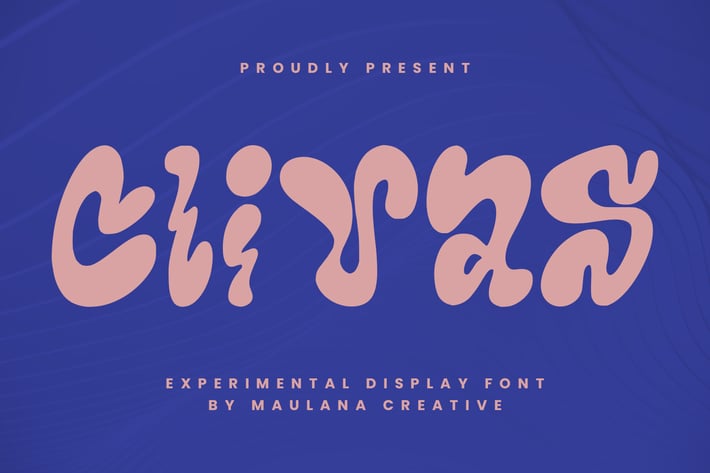
Clivas Experimental Display Font
Clivas experimental display font. Heavy stroke, fun character with a bit of ligatures. To give you an extra creative work. Clivas experimental display font support multilingual more than 100+ language. This font is good for logo design, Social media, Movie Titles, Books Titles, a short text even a long text letter and good for your secondary text font with script or serif. Make a stunning work with Clivas experimental display font.